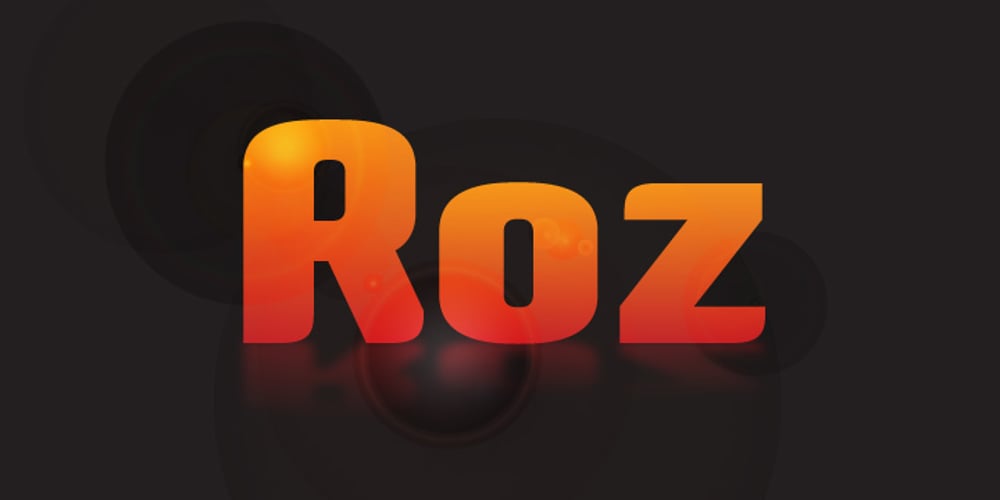
Roz Font Family was designed by Valery Zaveryaev and published by Gaslight. Roz contains 6 styles and family package options. Roz is clean geometric sans round by one side and sharp on the other side. It has three weights and corresponding italics. Roz is ideal for package design, headlines and other typographic mediums.